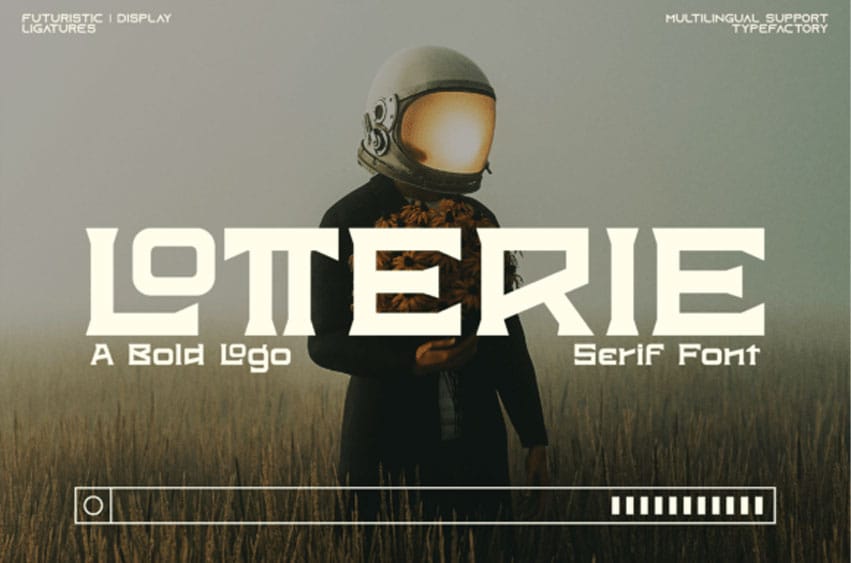
Lotterie Font is a futuristic display font that combines sharp geometric construction with distinctive serif-inspired terminals, creating a unique hybrid look between sci-fi and modern typography. Each character is built with angular cuts and strong proportions, giving a bold and structured appearance suitable for high-impact visuals.
The font includes stylistic ligatures and multilingual support, allowing more dynamic and flexible typography across different languages and layouts. Its strong presence makes it ideal for headlines, logos, posters, and digital interfaces where a futuristic and technological tone is required.
Lotterie works well in themes such as space exploration, gaming, technology branding, and cinematic titles, while still maintaining readability through its balanced spacing and consistent letterforms.